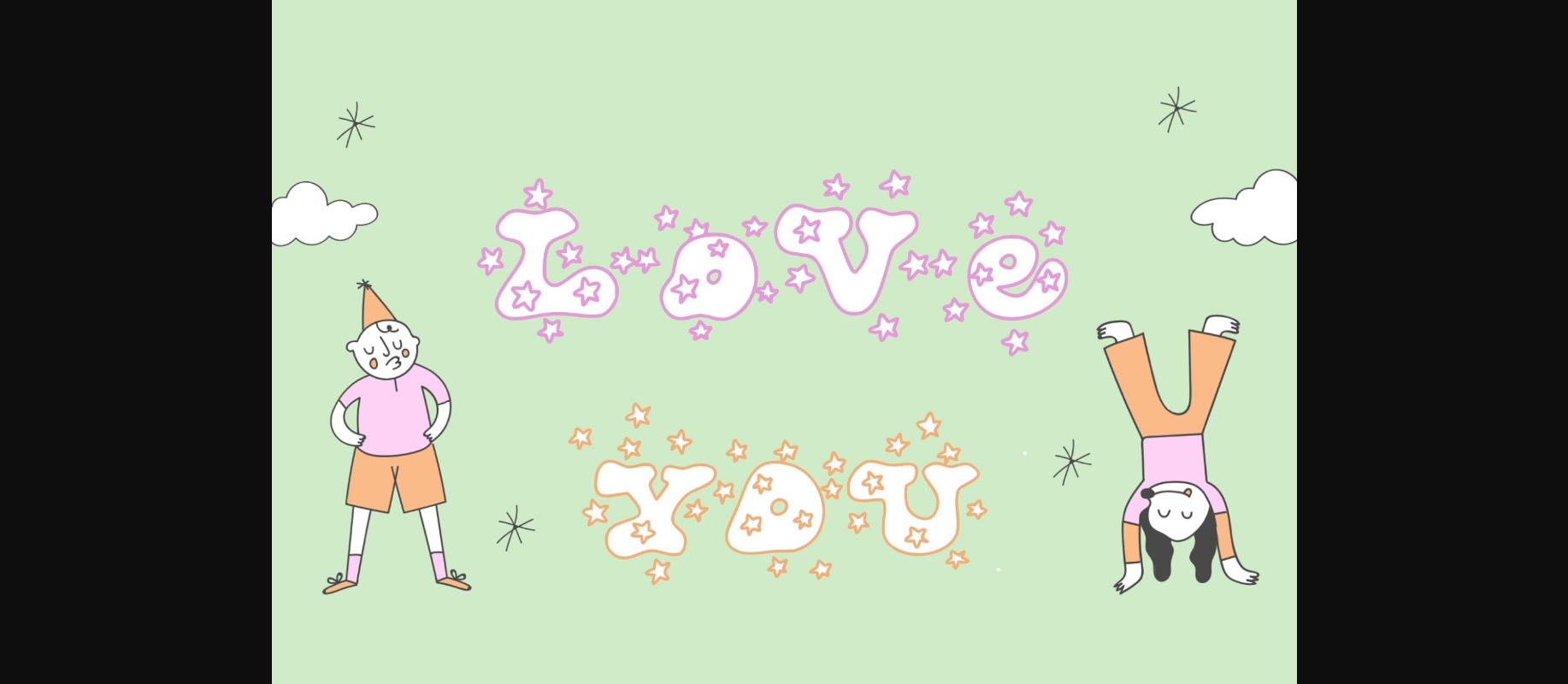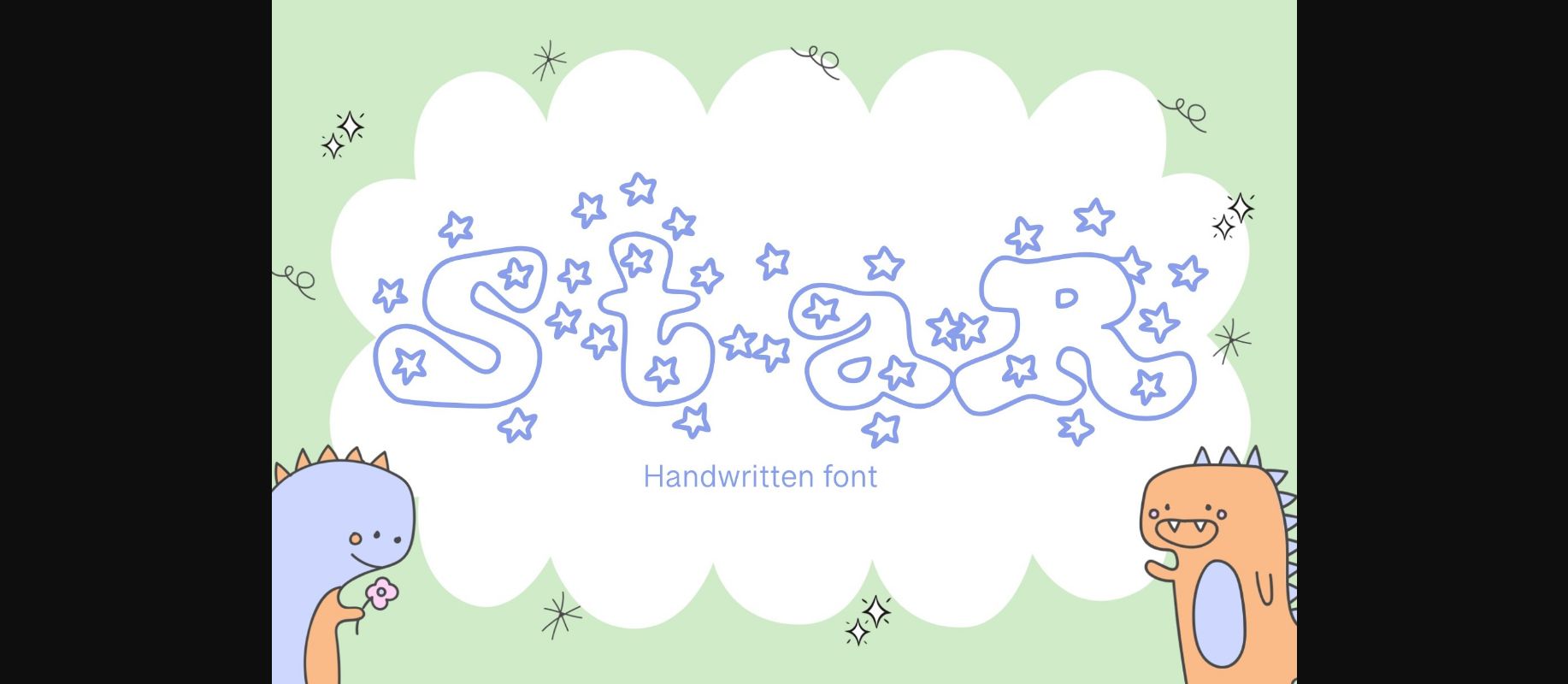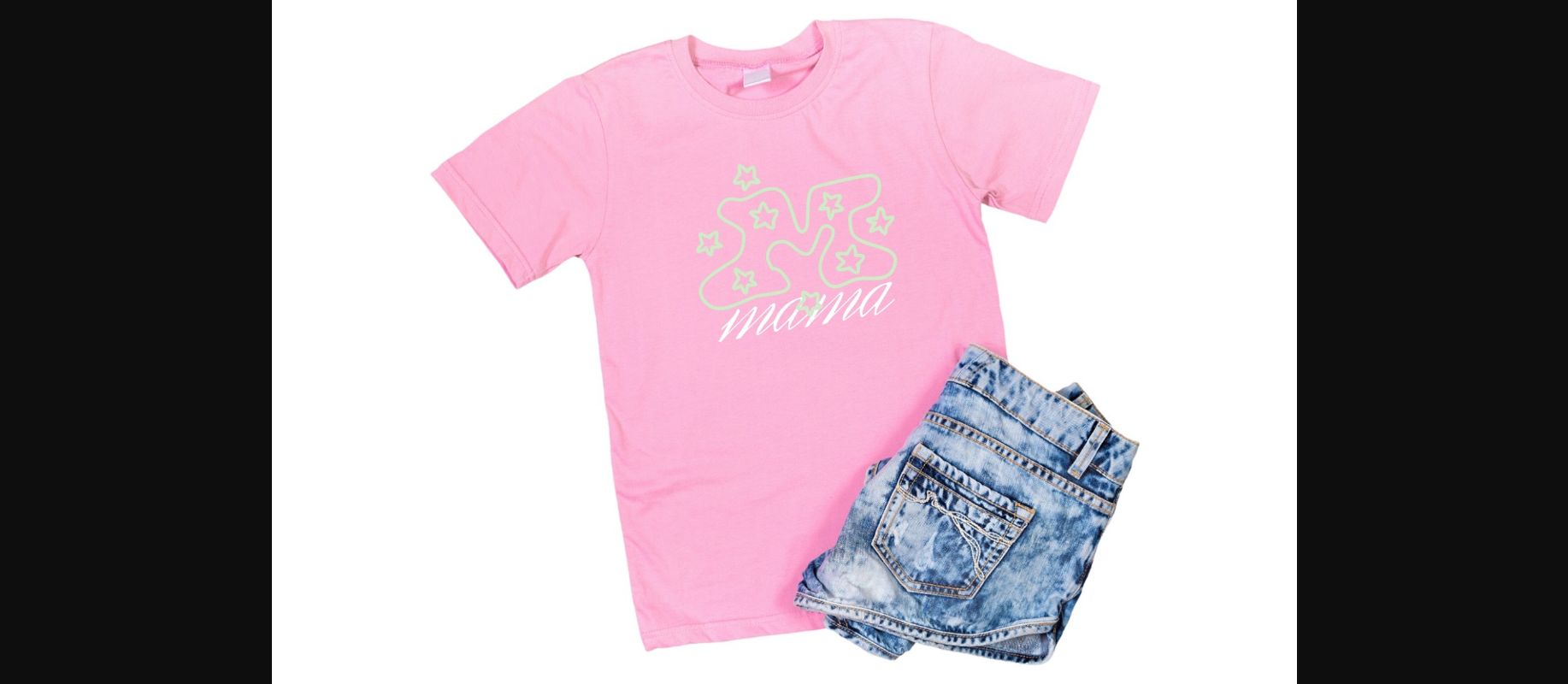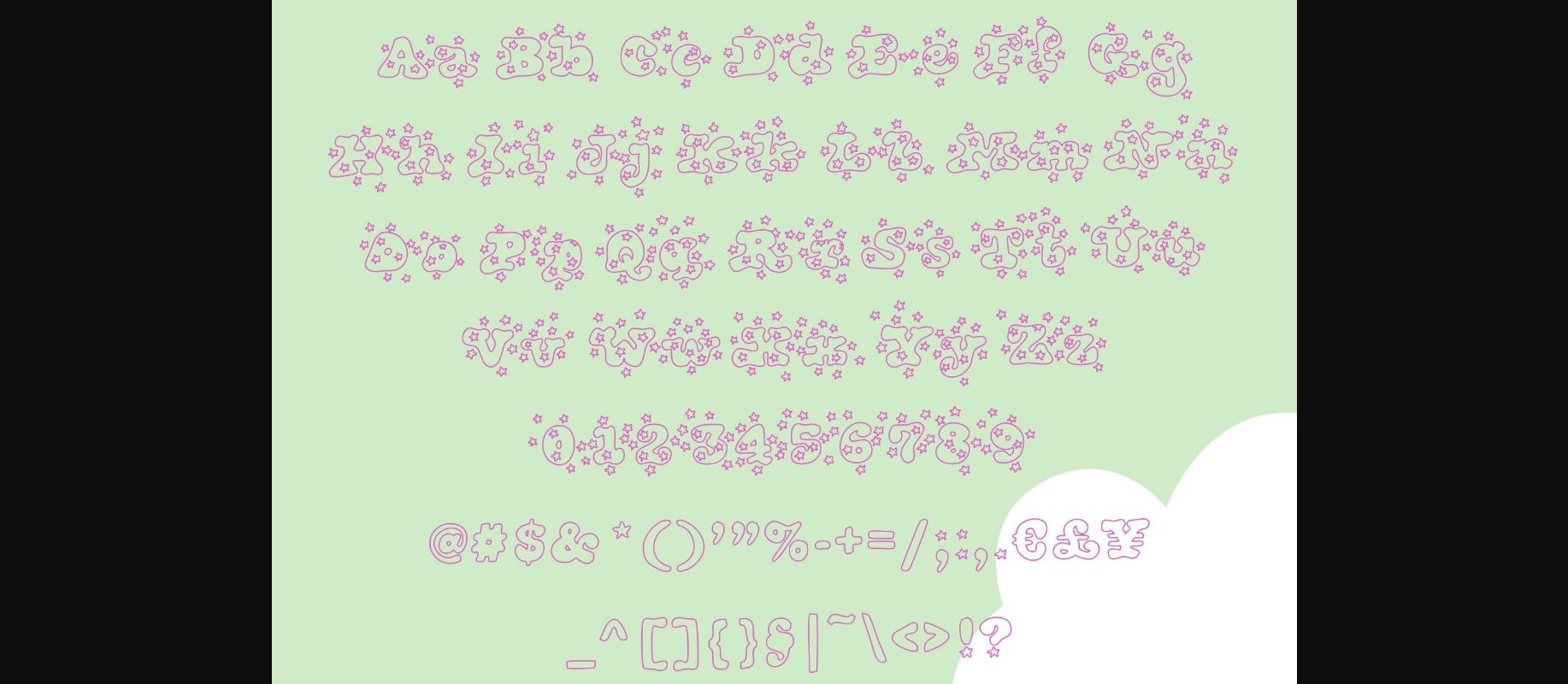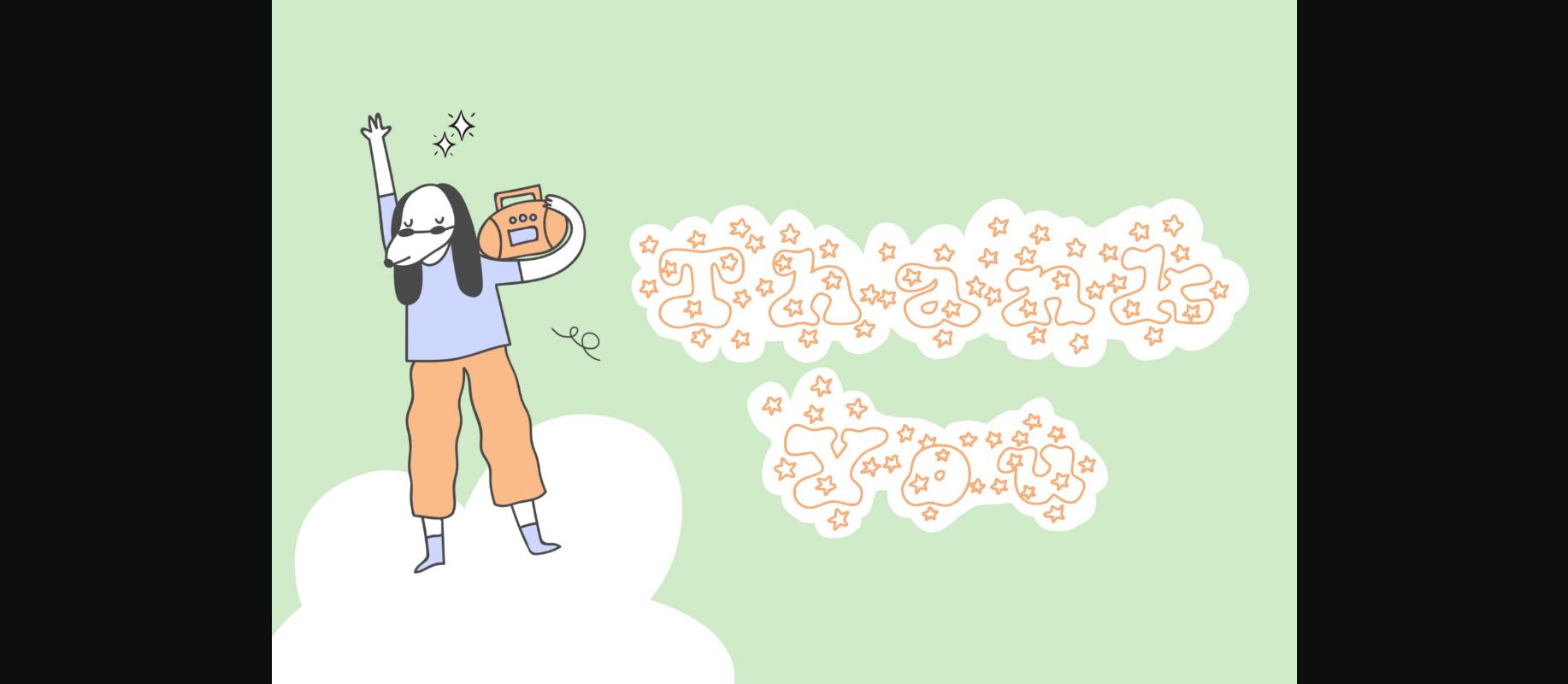
About Star Font
Star decorative handwriting font is a charming and whimsical font that adds a touch of playfulness and personality to any design project. The font is designed to resemble a handwritten script, with each letter featuring a unique and individualized design that gives the font a sense of character and personality.
Star decorative handwriting font is perfect for a wide range of applications, from greeting cards and invitations to posters and social media graphics. It is highly versatile and can be used in a variety of different contexts, from casual and playful designs to more sophisticated and refined looks.